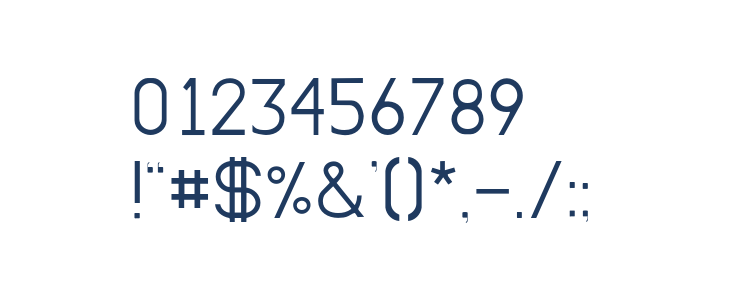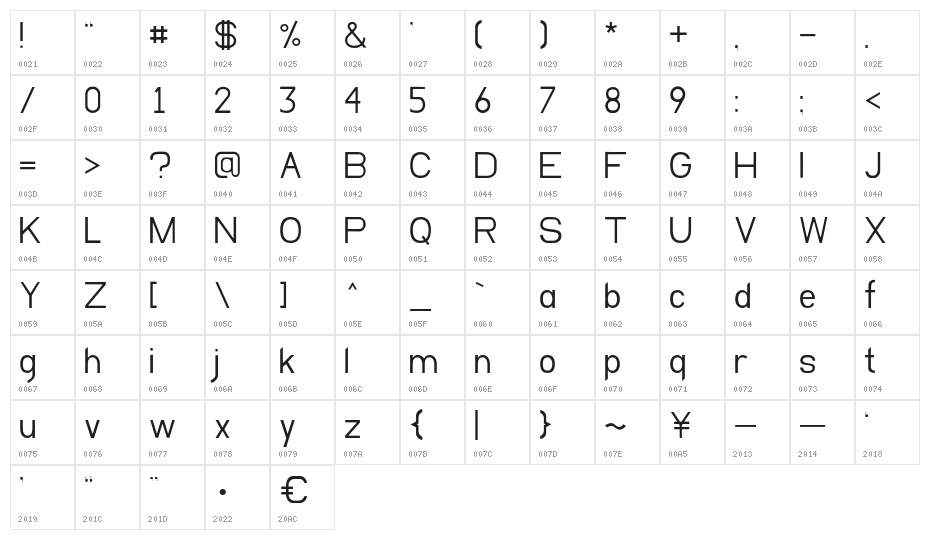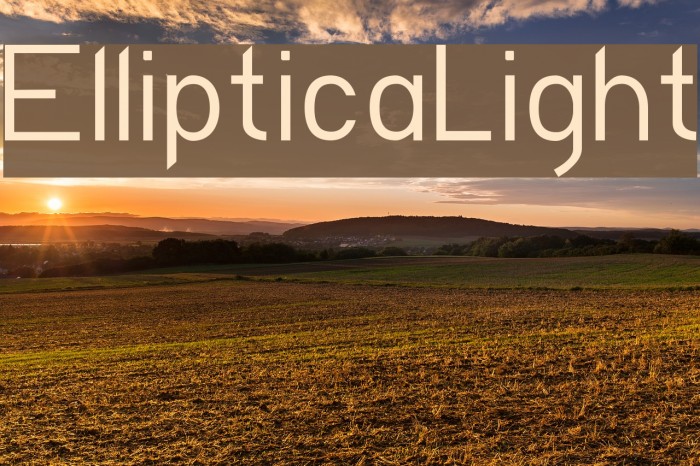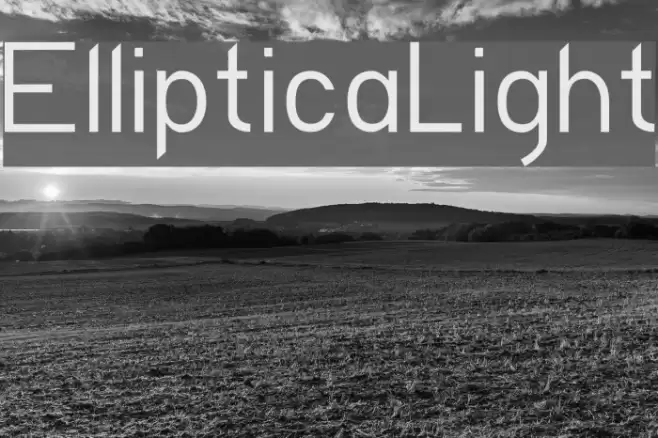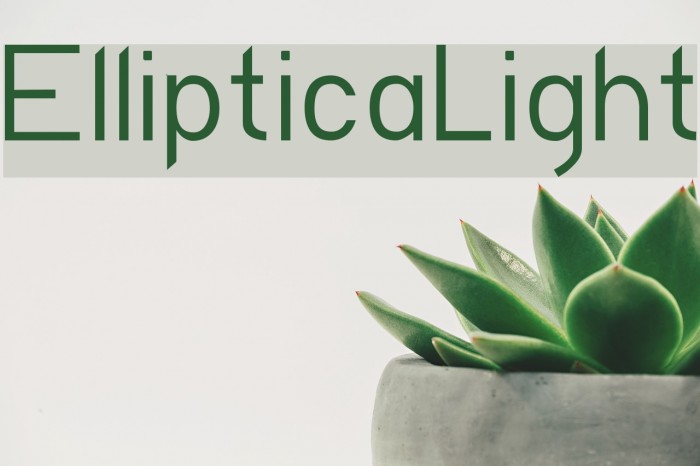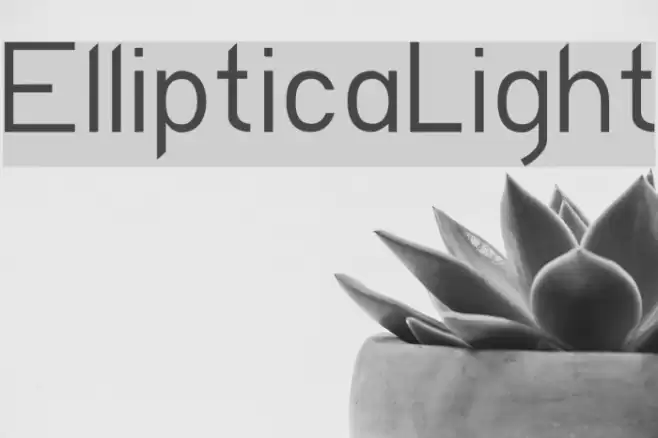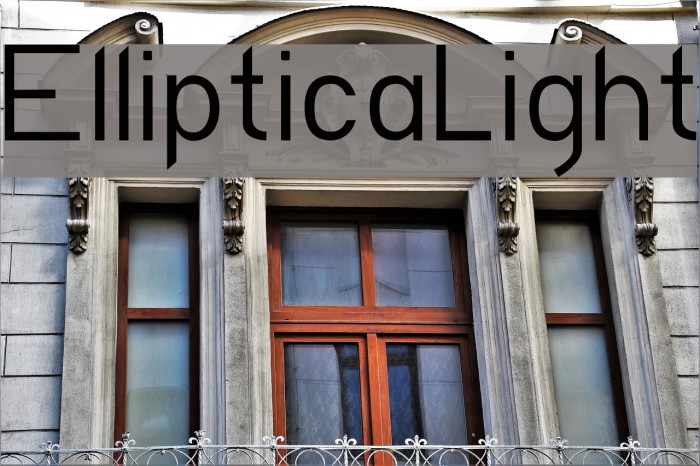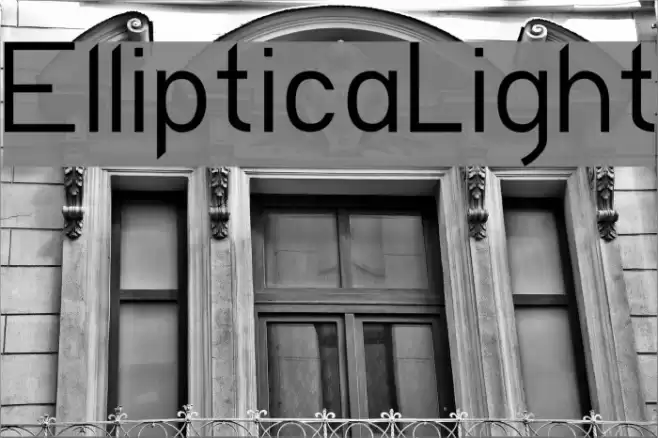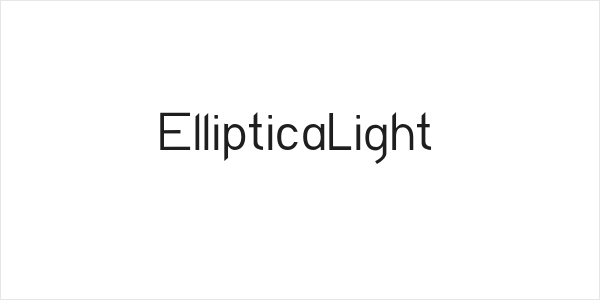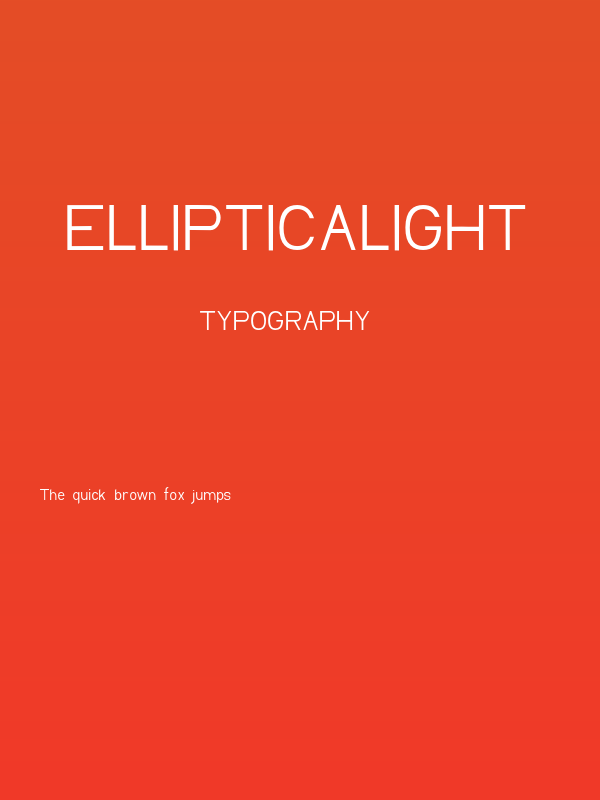
EllipticaLight Font
EllipticaLight Description
This font features a clean and modern sans-serif design with a light weight, making it ideal for contemporary applications. The characters are evenly spaced with a normal width, providing excellent readability. The strokes are consistent with low contrast, giving the typeface a sleek and minimalist appearance. The uppercase and lowercase letters are well-proportioned, and the numerals are clear and straightforward. Special characters are included, maintaining the font's cohesive style. Its simplicity and elegance make it versatile for various design projects.
| Proposed Projects | Ideal for branding, web design, corporate materials, and minimalist print layouts. |